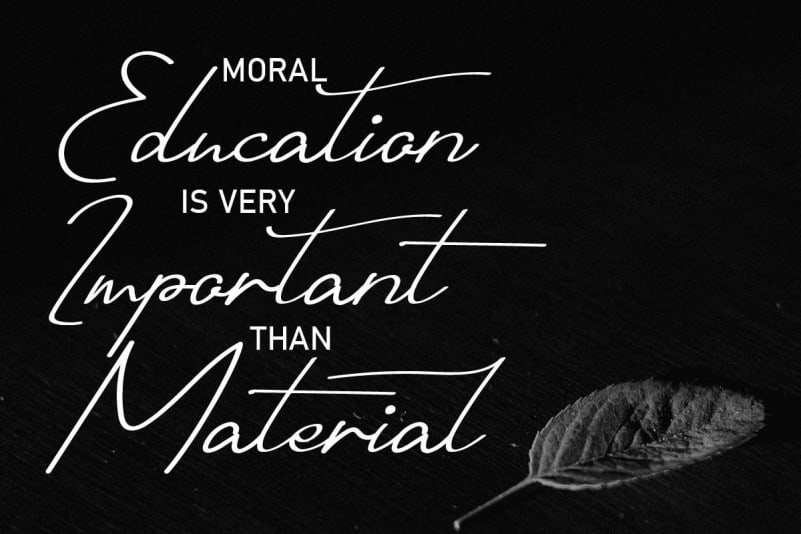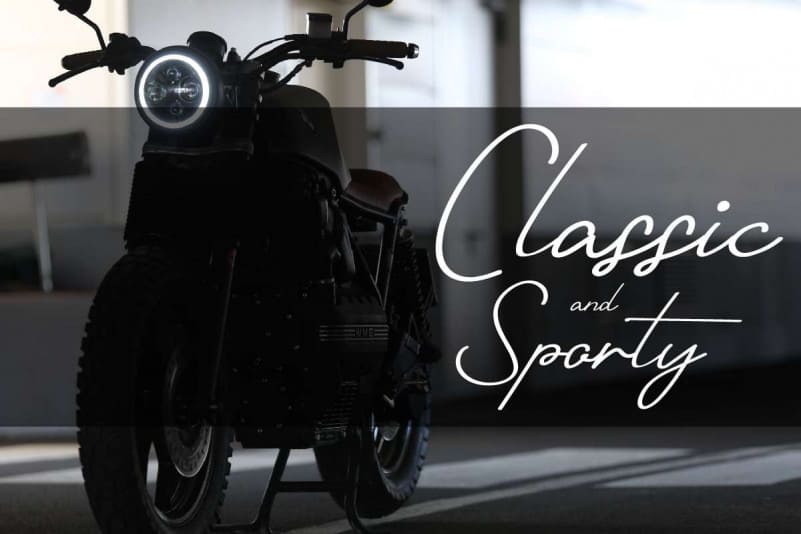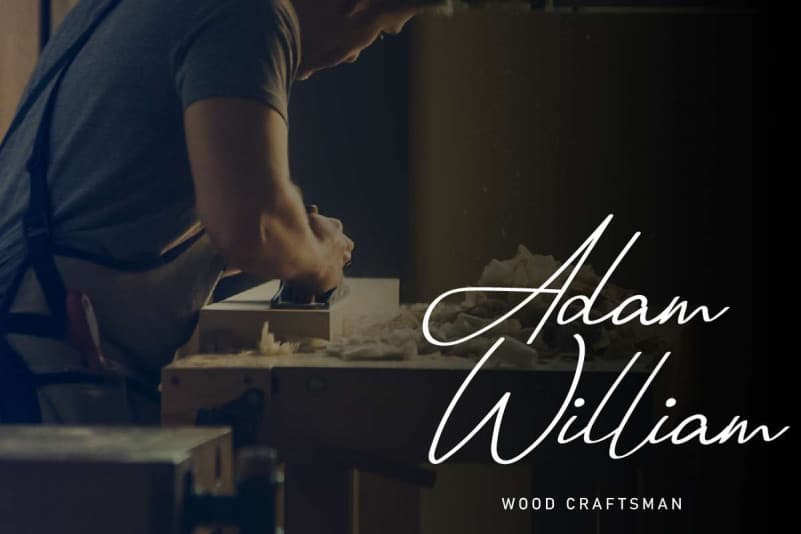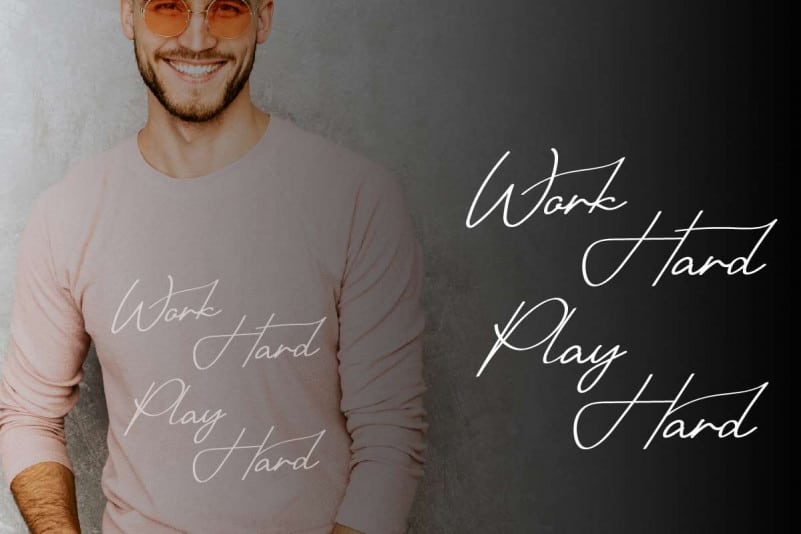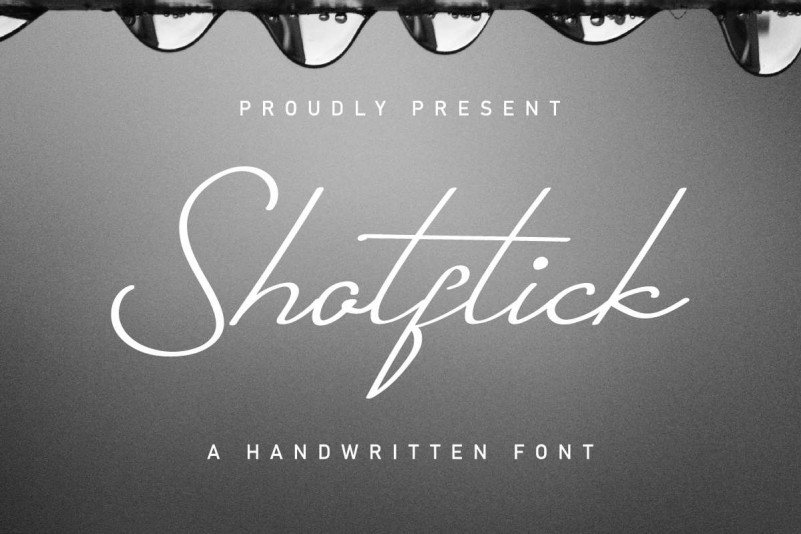
Shotflick Handwriting Font
Shotflick is a Handwriting signature script font. The style of this font are classic, luxury, glamour, sexy and elegant handwritten pen.